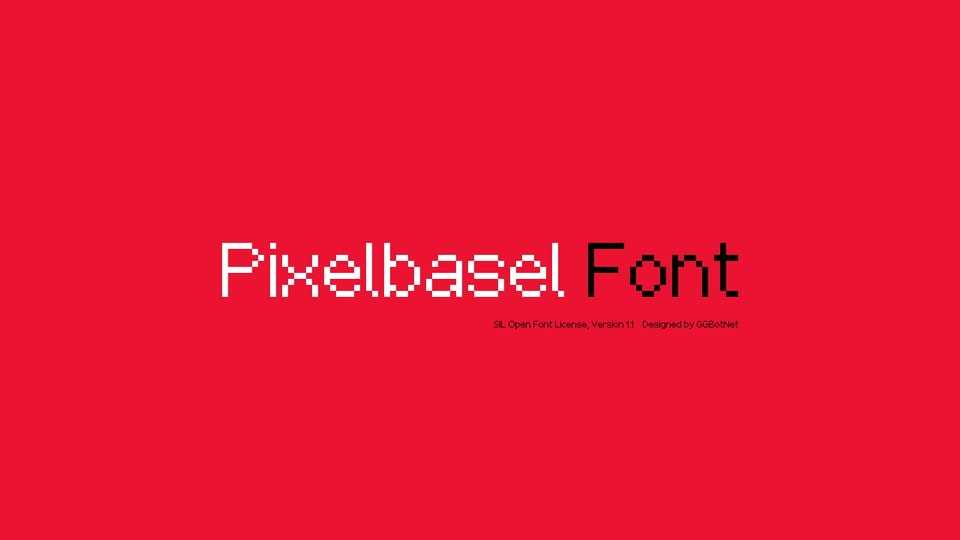
Download Pixelbasel font, a crisp and minimalist pixel-style typeface that bridges the charm of retro digital aesthetics with clean modern usability.